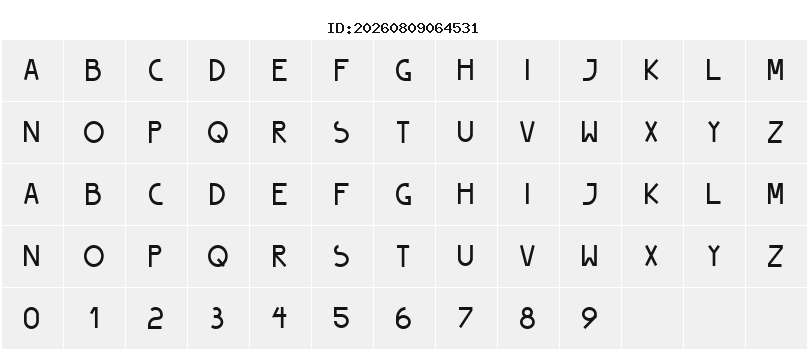
• Designer: Shannon Kyle Lim
About Peyo.ttf
Peyo.ttf is a modern, elegant sans-serif font designed for ultimate readability and visual harmony. Perfect for branding, headlines, web design, and print materials.